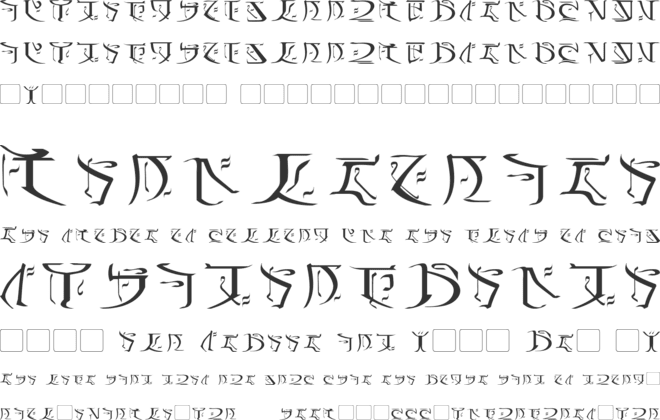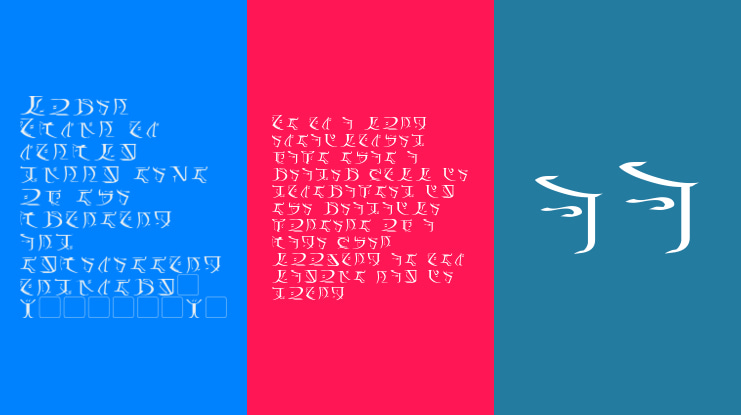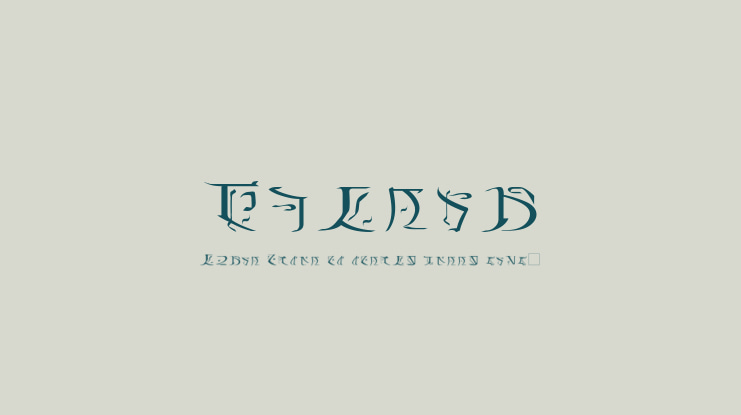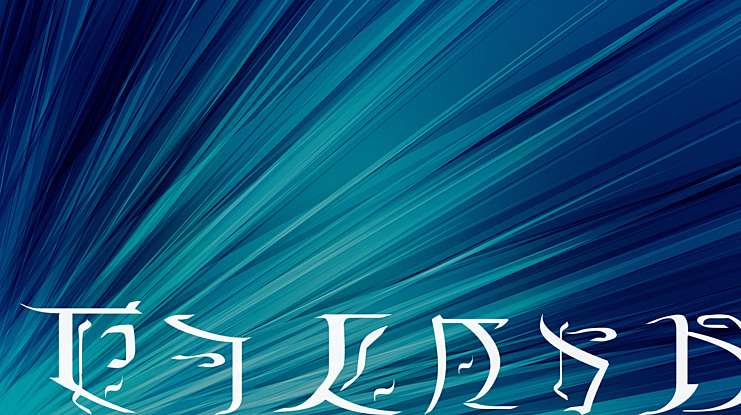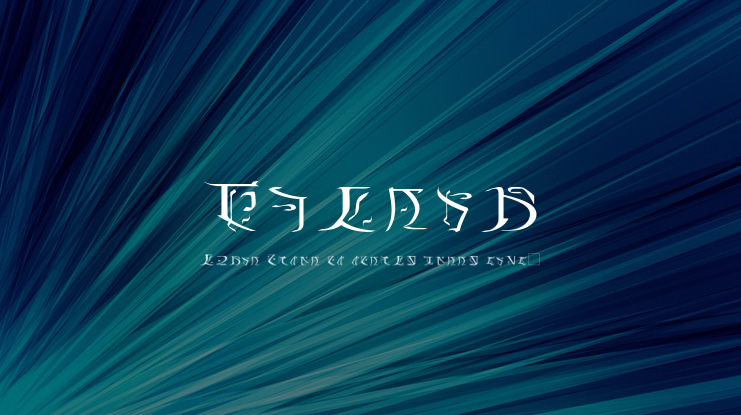
Falmer Font Family
Neale Davidson
Falmer is the ancient Snow Elf script from Bethesda Softwork’s Elder Scrolls series of games. This ornate face is designed to be a cross between fae runes and more modern script-based languages. Includes all canon characters and comes in regular, bold, italic, and bold italic weights.